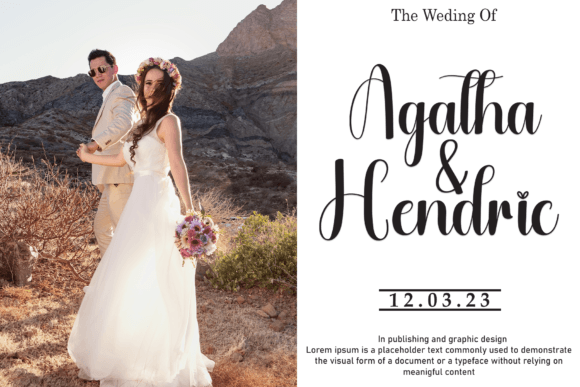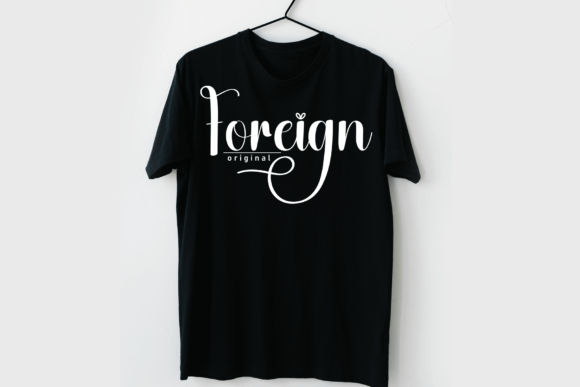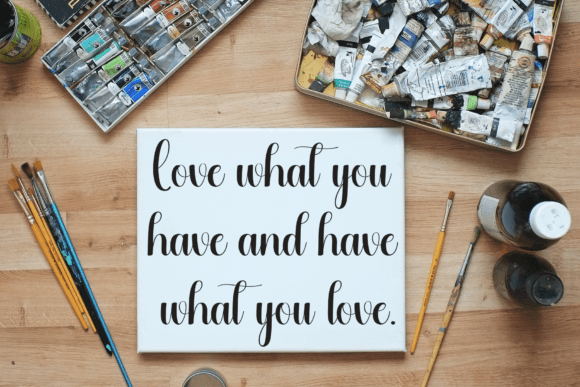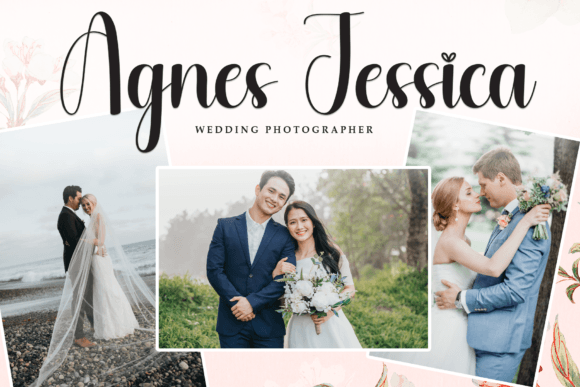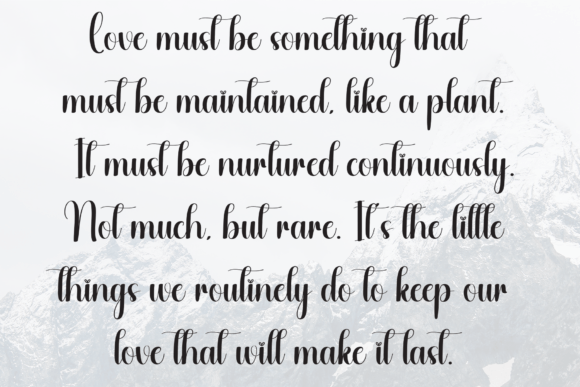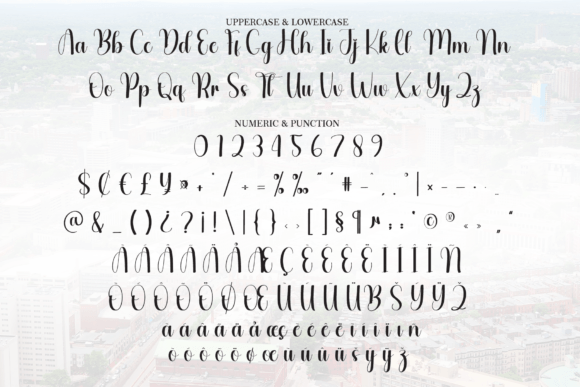
Introducing Harrogate Font: The Epitome of Elegance and Sophistication
In the realm of typography, few fonts have managed to capture the essence of luxury and refinement as effortlessly as Harrogate Font. This exquisite typeface has been meticulously crafted to embody the very essence of elegance, making it an ideal choice for designers and crafters seeking to elevate their projects to new heights of sophistication.
The Characteristics of Harrogate Font
Harrogate Font boasts clean lines, classic letterforms, and a refined aesthetic that sets it apart from more mundane typefaces. Its understated yet luxurious appearance makes it perfect for high-end branding, editorial layouts, and upscale designs where sophistication is paramount. Each character has been carefully designed to exude a sense of poise and refinement, ensuring that your projects convey a sense of excellence and prestige.
Key Features of Harrogate Font
- Clean Lines: The font’s clean lines and uncluttered design make it easy to read and visually appealing.
- Classic Letterforms: Harrogate Font’s classic letterforms evoke a sense of timelessness, ensuring that your designs remain relevant for years to come.
- Luxurious Aesthetic: The font’s refined aesthetic makes it perfect for high-end branding, editorial layouts, and upscale designs.
- Elegant and Sophisticated: Harrogate Font adds a touch of sophistication and refinement to any project, elevating it to a new level of excellence.
Perfect for High-End Branding and Upscale Designs
When it comes to high-end branding, editorial layouts, and upscale designs, the font you choose can make all the difference. Harrogate Font is specifically designed to meet the demands of these discerning applications, providing a level of sophistication and refinement that is hard to match. Whether you’re creating a luxury brand identity, designing an editorial layout, or crafting an upscale advertisement, Harrogate Font is the perfect choice.
Why Choose Harrogate Font?
With so many fonts available, why choose Harrogate Font? The answer lies in its unique combination of elegance, sophistication, and versatility. Here are just a few reasons why Harrogate Font stands out from the crowd:
- Timeless Appeal: Harrogate Font’s classic design ensures that it will remain relevant for years to come, avoiding the pitfalls of trendy fonts that quickly become outdated.
- Versatility: The font’s clean lines and refined aesthetic make it suitable for a wide range of applications, from high-end branding to editorial layouts and upscale designs.
- Attention to Detail: Harrogate Font has been meticulously crafted to provide a flawless typographic experience, with each character carefully designed to ensure perfect readability and aesthetics.
In conclusion, Harrogate Font is a refined and timeless typeface that embodies elegance and sophistication. With its clean lines, classic letterforms, and luxurious aesthetic, it’s the perfect choice for high-end branding, editorial layouts, and upscale designs. Whether you’re a designer or crafter, Harrogate Font is sure to elevate your projects to new heights of excellence. So why wait? Discover the power of Harrogate Font today and experience the art of typography like never before.